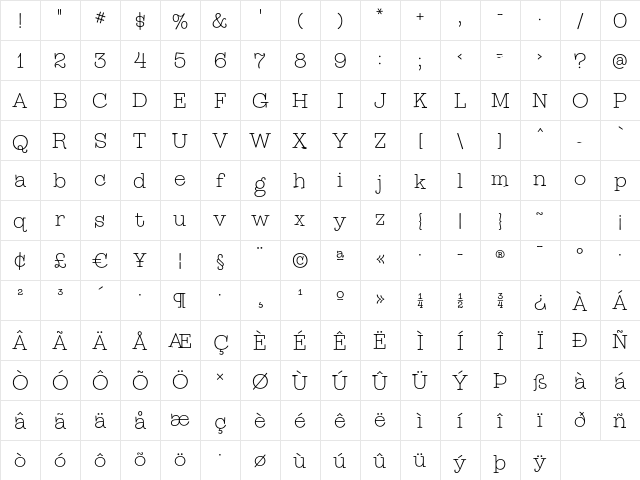
ShagExpert-Mystery Regular Free Font
ShagExpert-Mystery Regular
Designer: Ken Barber & Christian Schwartz
Design Context for ShagExpert-Mystery
ShagExpert-Mystery is a composed and adaptable typeface that performs quietly and consistently across a wide range of design contexts.